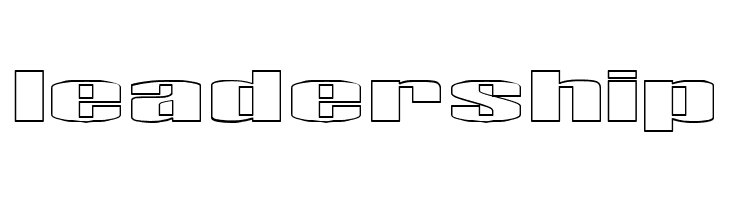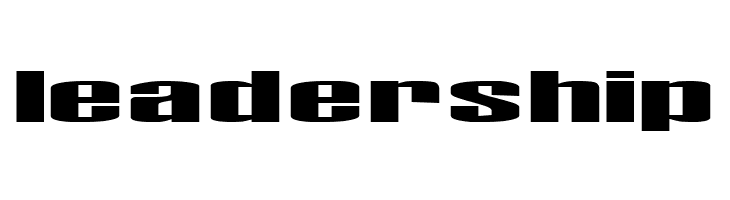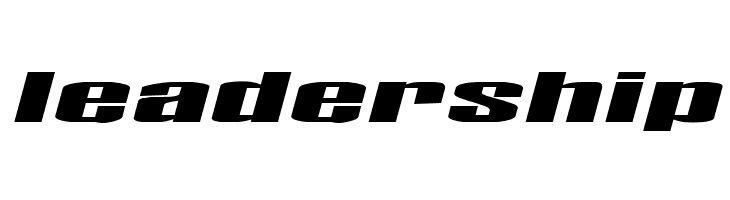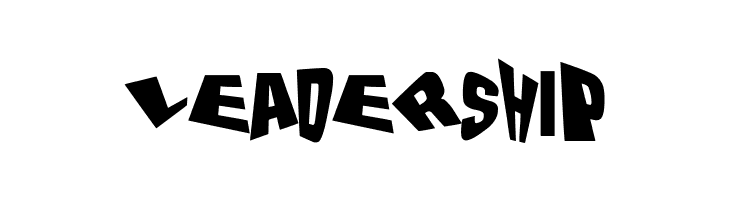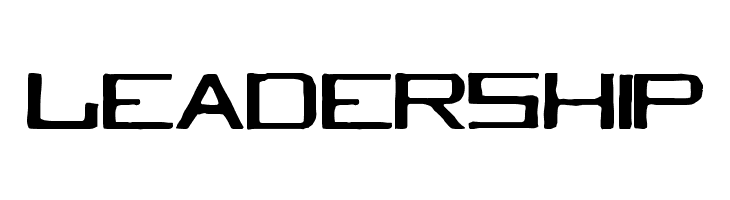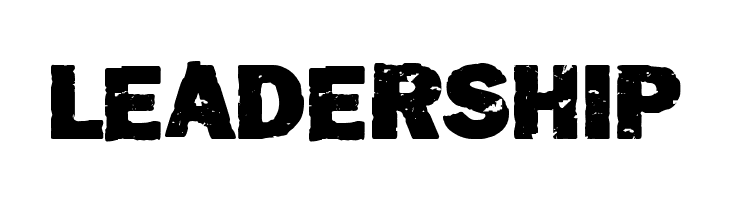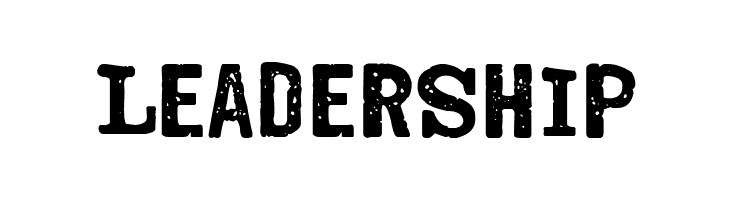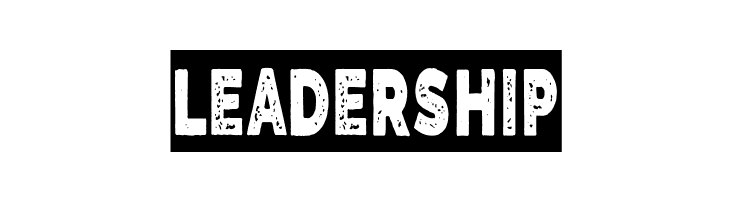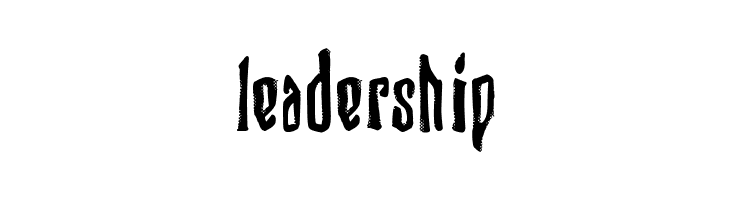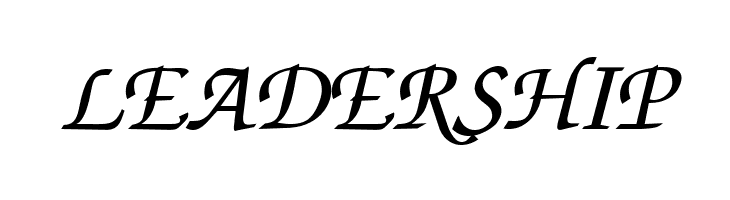
A bold, modern font with thick, block-like characters.
A modern, hollow, outlined font with a bold, geometric style.
A modern, italic hollow font with clean lines and geometric structure.
A bold, italic font with a dynamic and modern style.
A bold, playful font with rounded edges and a casual, friendly style.
A bold, outlined font with a playful, cartoonish style.
An organic, hand-drawn font with a textured, decorative style.
A bold, geometric font with sharp angles and smooth curves, ideal for modern designs.
A distressed, grungy font with jagged edges and irregular strokes.
A monospaced, modern typeface with low contrast and uniform spacing.
A bold slab serif font with strong serifs and uniform strokes.
A bold, oblique font with consistent stroke thickness and a modern slant.
A clean, oblique font with a modern and dynamic style.
A bold, textured font with a vintage, distressed appearance.
A bold, distressed font with a grunge, vintage style and textured appearance.
A bold, distressed font with a grunge aesthetic and rugged texture.
A bold, textured font with a vintage horror aesthetic.
A bold, playful script font with decorative loops and swirls.
A bold, distressed font with a vintage, rugged appearance.
A bold, flowing script font with elegant, cursive letterforms.
A segmented, digital display-style font with a bold, geometric appearance.
A pixelated, LCD-inspired font with a bold, geometric style.
A modern, geometric font with bold, structured characters.
A playful, chaotic font with bold, irregular characters and a whimsical feel.
A chaotic, sketch-like font with a hand-drawn, energetic style.
A bold, textured font with a vintage, handcrafted appearance.